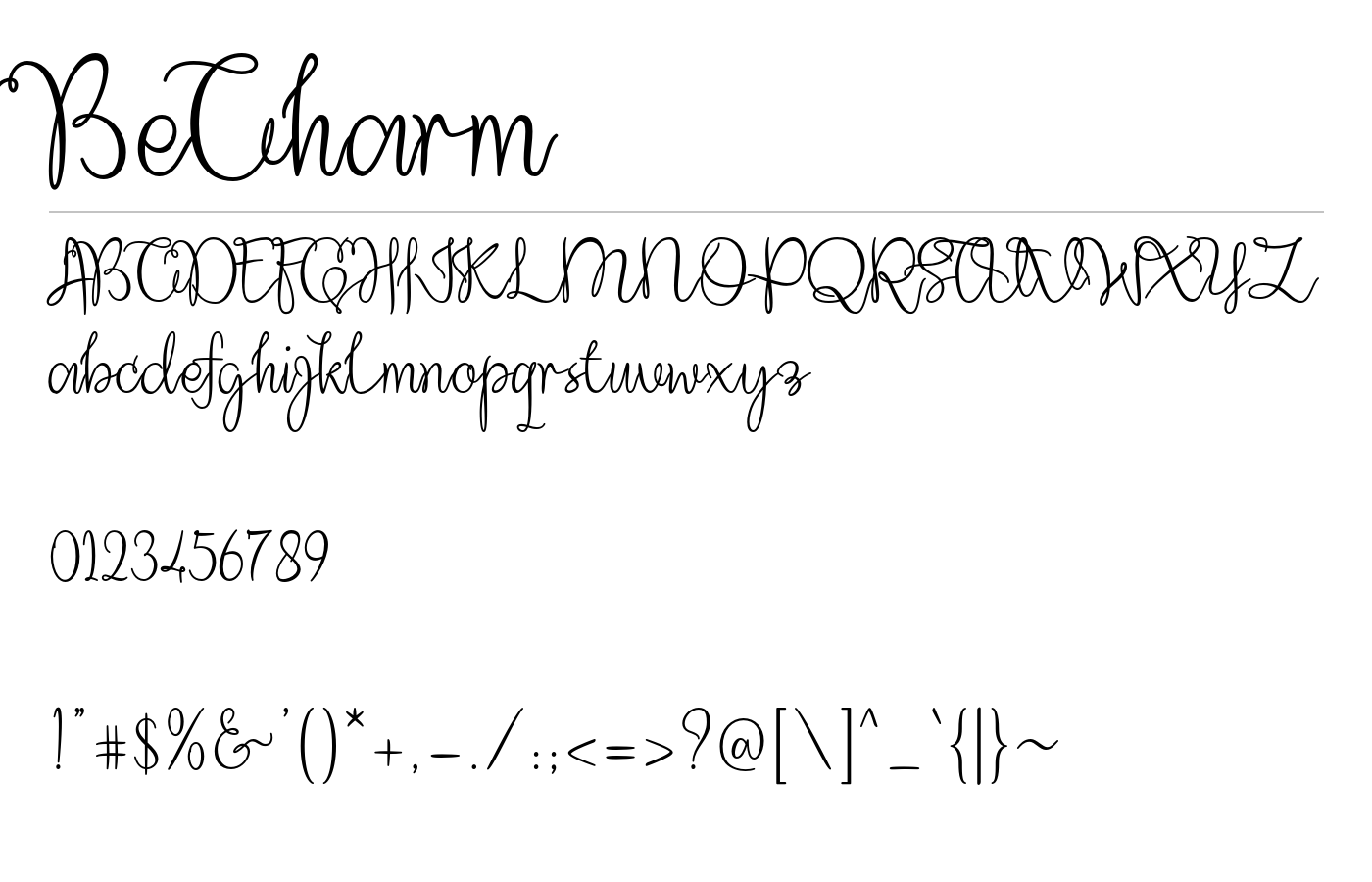
BeCharm is a delicate, thin script font with elegant, looping strokes that give it a playful yet sophisticated charm. Its light weight and airy spacing make it perfect for creative and personal projects such as invitations, branding, and decorative headlines where a whimsical, feminine touch is desired. This font works best when used for accents rather than long texts, adding a graceful and artistic flair to any design.
BeCharm Font
About BeCharm Font